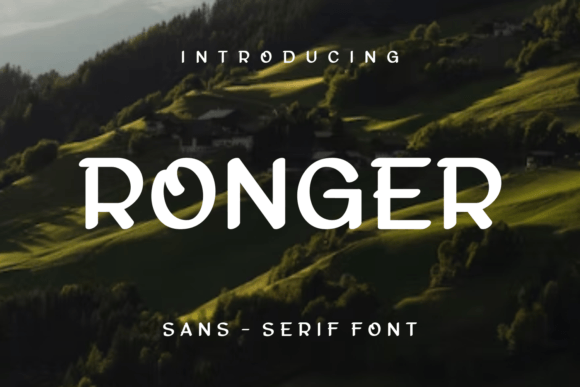
Introducing **Ronger Font**, a cutting-edge sans-serif typeface designed to conquer the digital realm. Crafted by the visionary mind of lelevien, Ronger embodies the essence of technological prowess.
Prepare to be mesmerized by its crisp lines, meticulously chiseled curves, and unparalleled precision. Each character stands as a testament to the unwavering dedication to detail that breathes life into this extraordinary font.
Immerse yourself in the limitless possibilities as Ronger becomes your secret weapon for captivating tech websites. Its inherent versatility empowers you to effortlessly elevate your digital creations, leaving an unforgettable mark on your audience.
Whether you seek to craft sleek interfaces, informative articles, or immersive presentations, Ronger's unwavering presence will enhance every element of your online presence. Its undeniable charm captivates, while its technical finesse ensures flawless execution.
Don't settle for the mundane; embrace the extraordinary with **Ronger Font**. Its ability to transform your tech endeavors into masterpieces is undeniable. Let Ronger be your guiding light in the digital universe, leading you to the pinnacle of visual brilliance.